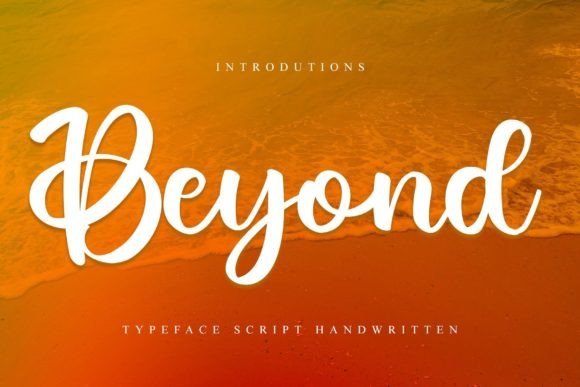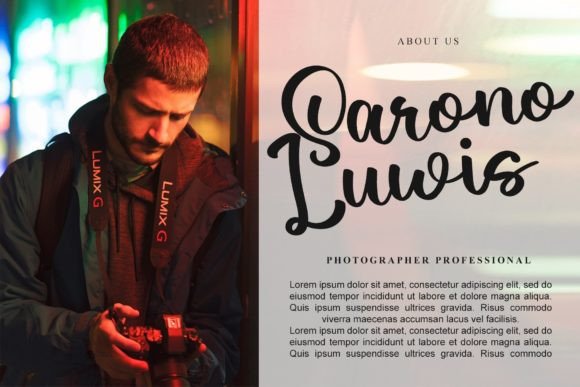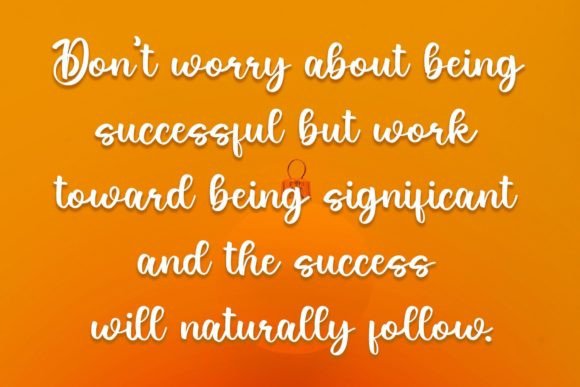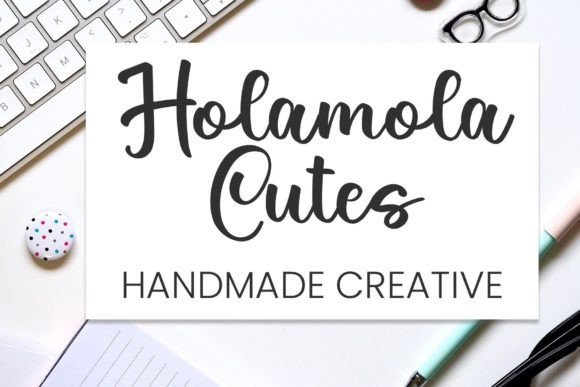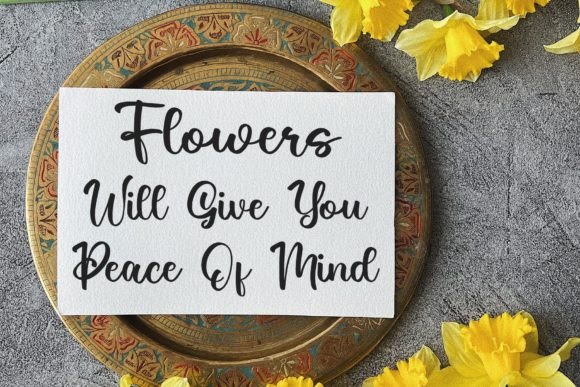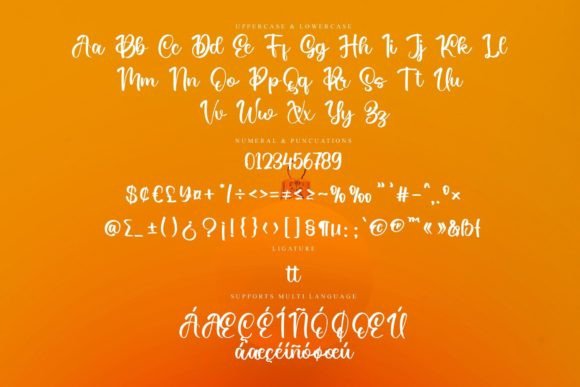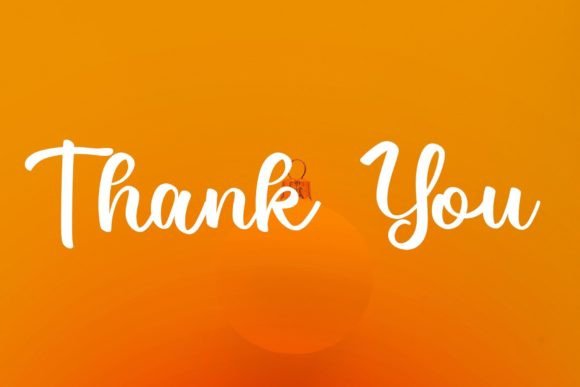
Unleashing Your Creativity with Beyond Font
Have you ever stared at a blank page, wondering where to start with a new design project? The blank slate can be both exhilarating and intimidating. As a designer, you know that finding the perfect font can make all the difference between a good design and a great one. This is where Beyond Font comes in – a lovely and sweet handwritten script font that adds a touch of joy and romance to any project.
Beyond Font is more than just a pretty face; it’s a valuable tool in a designer’s toolkit. With its gentle, handwritten feel, it’s perfect for adding a personal touch to invitations, greeting cards, and even branding materials. Whether you’re working on a wedding design, a children’s book, or a social media campaign, Beyond Font is sure to elevate your design and leave a lasting impression.
Beyond Font Key Features
- Advanced Typography: Beyond Font includes advanced typography features, such as ligatures, swashes, and contextual alternates, to enhance the readability and aesthetic appeal of text.
Designer Review: Beyond Font
Overall, I’m impressed with the versatility and creative possibilities that Beyond Font offers. Here are some aspects that stand out:
- ✨ Customizable typography: Beyond Font allows for a high degree of customization, making it suitable for various design projects, from logos to large-scale branding.
- ✨ Wide range of font styles: The font library includes a wide range of styles, from clean and modern to bold and vintage, giving designers ample options to choose from.
However, I do have some concerns:
- ⚠️ Steep learning curve: While the customization options are vast, they can be overwhelming for designers new to typography or font customization.
Overall, Beyond Font is a powerful tool for designers who want to push the boundaries of typography. With its versatility, customization options, and ease of integration, it’s an excellent choice for projects requiring creative and unique font styles. However, its limitations, such as compatibility issues and a steep learning curve, may make it less suitable for designers working with older software or those new to font customization.
Tips for Getting the Most Out of Beyond Font
Experiment with different font styles and sizes to find the perfect combination for your design. Use Beyond Font to create a consistent look and feel across your design. Consider using Beyond Font in conjunction with other design elements, such as images and graphics, to create a visually appealing design.
Beyond Font is a versatile font that can be used in a variety of design applications, including: business cards, resumes, posters, flyers, and social media graphics. It’s also a great option for creating a consistent brand identity across multiple platforms.